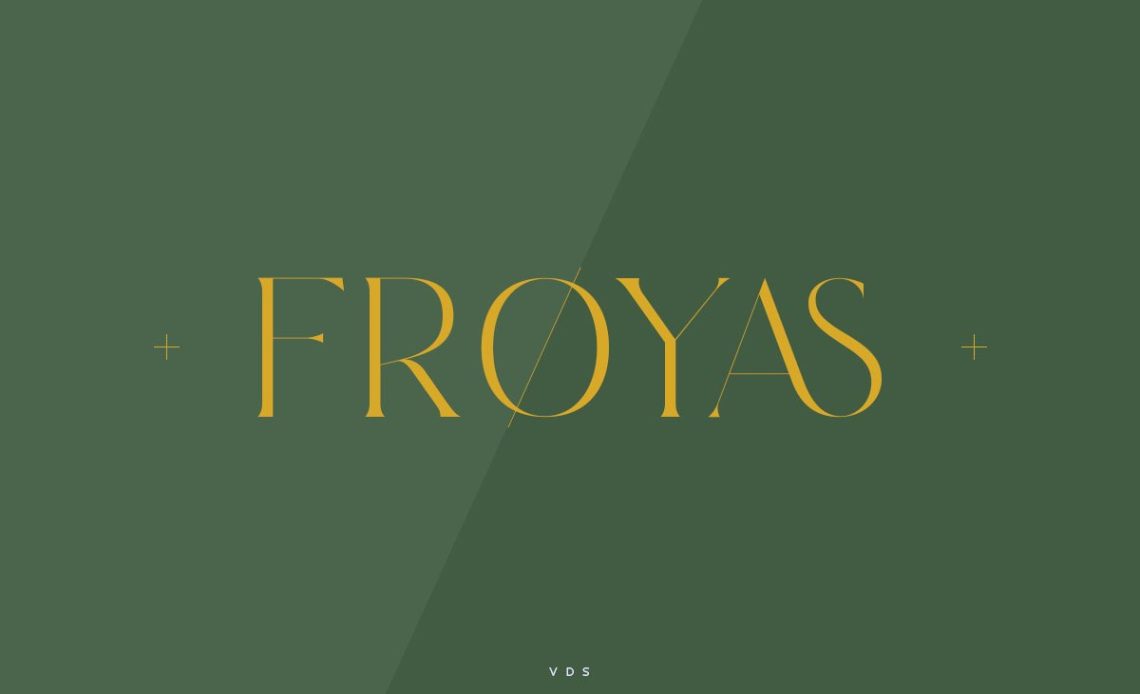
Looking for the perfect font to elevate your email signature game? Look no further than Froyas Font, the modern serif font created by Agung Syaifudin that is taking the typography world by storm!
Froyas Font is the perfect choice for anyone looking to make their text look unique and eye-catching. With carefully crafted letters and beautiful alternate glyphs, this font is sure to make your email signature stand out from the rest.
But Froyas Font isn't just beautiful – it's also versatile. It supports a wide range of foreign languages, including ÀÁÂÃÄÅÆÇÈÉÊËÌÍÎÏÐÑÒÓÔÕÖØÙÚÛÜÝßàáâãäåæçèéêëìíîïðñòóôõöøùúûüýÿ. And with files available in OTF, TTF, and WOFF formats, you can easily access this font on any device.